- Font sales for short-form subtitles, title design, and fan-made merchandise rise by about 30%
- The global success of K-Pop Demon Hunters fuels fan creativity and font consumption, highlighting the growth potential of fonts in global markets
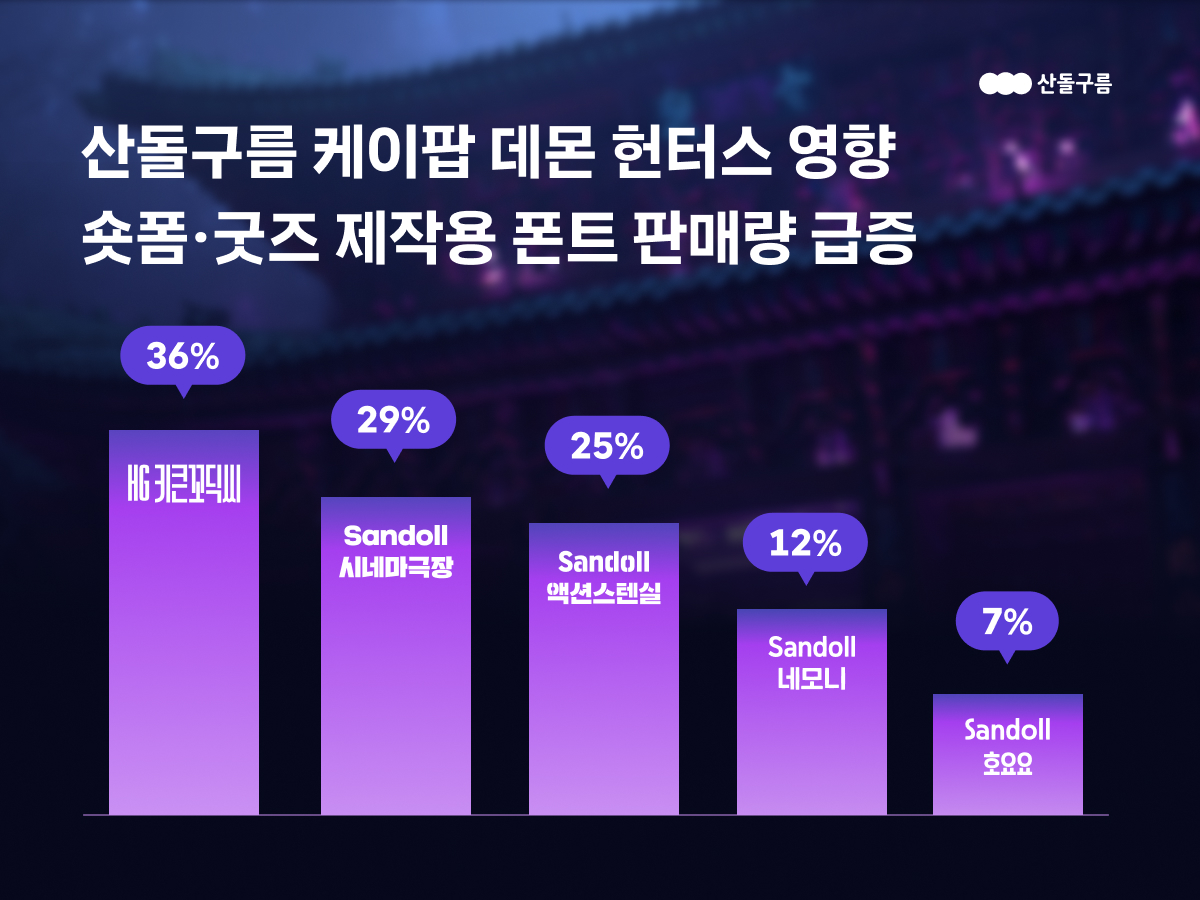
Sandoll (CEO Youngho Yun), a content creator platform company, announced on the 16th that its font platform, SandollCloud, has seen a sharp rise in font sales driven by the booming demand for short-form videos and fan merchandise production.
This trend is closely tied to the global success of the Netflix animated feature K-Pop Demon Hunters. According to Netflixโs official website, the film ranked first among all Netflix content earlier this month, with 266 million views.
With such explosive popularity, fans have continued the excitement by creating short-form videos, parody goods, and fan art using scenes and characters from the film.
In particular, subtitles have become an essential element in short-form content on platforms like TikTok and Instagram Reels. A recent study targeting U.S. consumers found that 80% of viewers were more likely to watch a video until the end if subtitles were provided. Since many people watch videos with the sound off in both public and private settings, subtitles have emerged as a key tool to boost viewer retention.
As a result, demand for distinctive fonts that enhance immersion and accelerate meme culture has rapidly increased. Title fonts are also being actively used in fan art and parody images, breathing new life into the font market.
According to data from SandollCloud, sales of popular fonts used in short-form subtitles, title design, and fan merchandise production soared year-on-year in the month following the release of K-Pop Demon Hunters.
- HG Kikun Gothic C saw the highest growth with a 36% increase, favored for its tall letter ratio that perfectly fits impactful subtitles and bold titles.
- Sandoll Cinema Theater rose by 29%, gaining traction for its retro aesthetic reminiscent of vintage movie marquees, widely used in parody videos.
- Sandoll Action Stencil grew by 25%, with its fragmented letter shapes conveying a dynamic feel, making it popular for fan art and poster design.
- Sandoll Nemoni increased by 12%, its bold, square structure being used in titles and banners.
- Sandoll Hoyoyo grew by 7%, appreciated for its playful tone and popularity in merchandise production.
Sandoll conducts annual user trend research to reflect emerging needs in font development. With the surge in short-form creative demand, the company has been releasing new fonts tailored for this trend. For instance, SD Walkie-Talkie, launched in July, was designed with short-form aesthetics in mind. It quickly gained traction, with active users increasing nearly fivefold by the end of August.
โThe success of K-Pop Demon Hunters is a prime example of how global content in the OTT era can expand into fandom creativity and merchandise, directly driving increased font usage. If this trend continues, font demand is likely to expand globally, and Sandoll will respond by offering multilingual and stylistically diverse fonts to support creative environments worldwide.โ